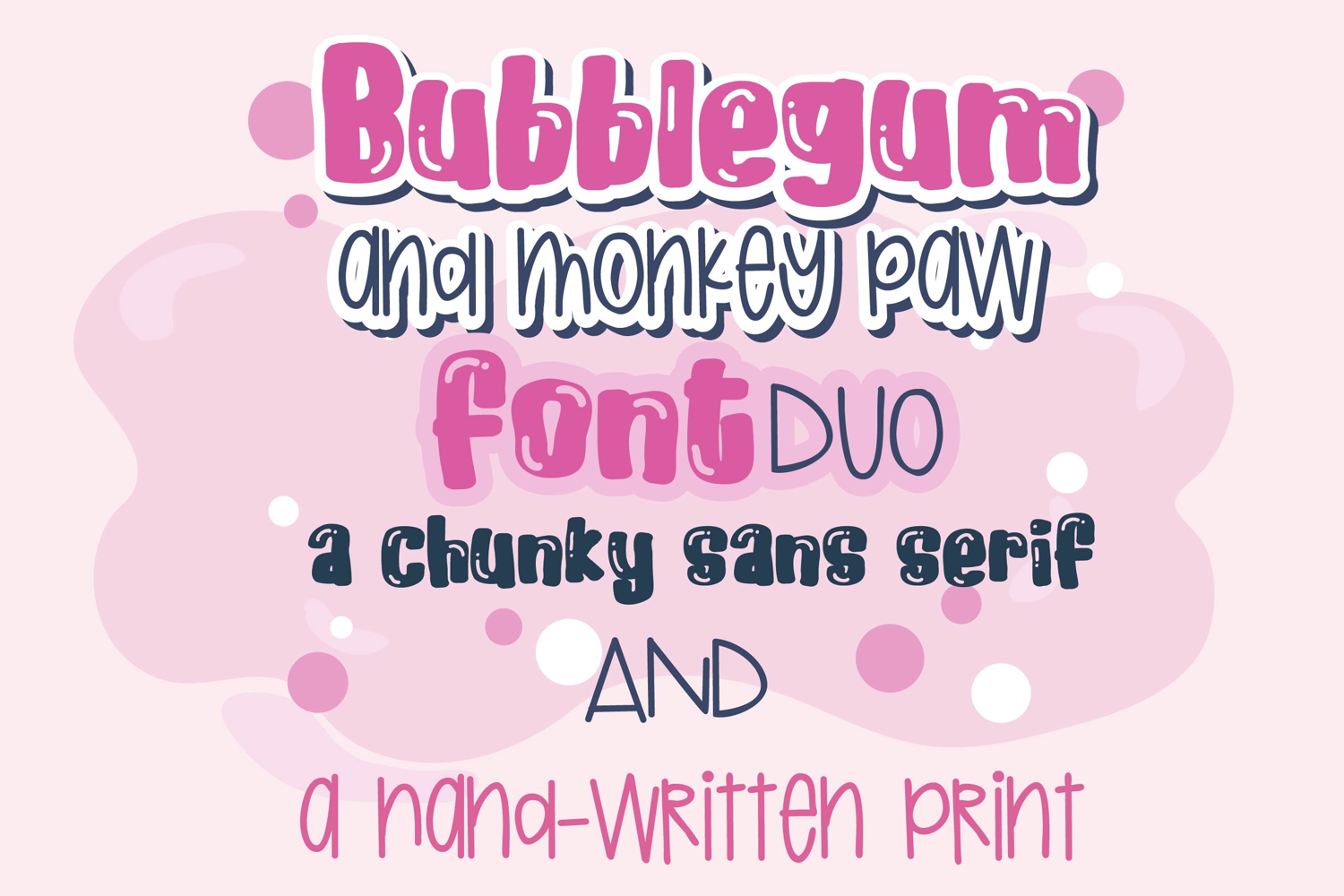
Bubblegum and Monkey Paw Font Duo
This hand-crafted font duo combines a fun chunky sans serif with a cute hand-written print that look perfect together! With all family members combined of the two fonts, you get 11 fonts all together!
Hand-crafted fonts can be either formal or informal, and they can be used for a variety of purposes. Some of the characteristics of handwritten fonts include: The letters are not perfectly uniform in size or shape. There may be slight variations in the spacing between letters and words. The font may have a "wiggly" or "squiggly" appearance. The font may be difficult to read at small sizes. Handwritten fonts can be a great way to add a casual touch to your designs. They can also be used to create a sense of nostalgia or whimsy. However, it is important to choose a handwritten font that is appropriate for the project you are working on. A formal handwritten font may not be appropriate for a casual invitation, while an informal handwritten font may not be appropriate for a corporate document.
• The letters are not perfectly uniform in size or shape.
• There may be slight variations in the spacing between letters and words.
• The font may have a "wiggly" or "squiggly" appearance.
• The font may be difficult to read at small sizes.